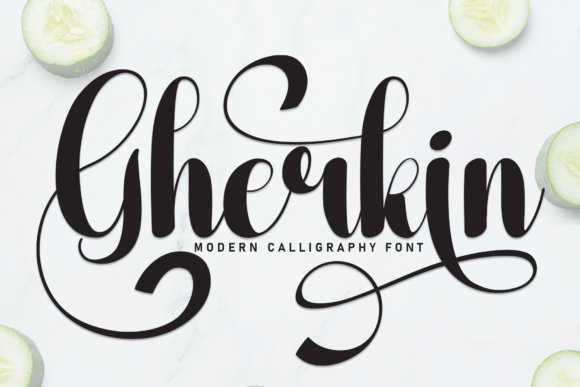
Feast your eyes on Gherkin Font, a whimsical and playful script font family that's the perfect choice for bringing a touch of lightheartedness to your designs. With its charming rounded curves and friendly letterforms, Gherkin radiates a sense of joy and cheerfulness that will add a special touch to any project.
Gherkin Font is a versatile font that's perfect for a variety of applications, including children's books, playful branding, creative projects, and more. Its energetic and delightful vibe will brighten up your designs and bring smiles to the faces of your readers or customers.
Let Gherkin Font be the star of your next children's book, adding a touch of magic and wonder to the pages. Its whimsical and playful nature will capture the imagination of young readers, making your story come alive in a whole new way.
Gherkin Font is also a great choice for playful branding and creative projects. Its unique and eye-catching design will help your brand stand out from the competition and leave a lasting impression on your customers. Whether you're designing a logo, creating marketing materials, or simply adding some flair to your website, Gherkin Font is sure to add a touch of fun and creativity.
With its versatility and charm, Gherkin Font is a font that every designer should have in their toolbox. Its friendly and approachable nature makes it a great choice for any project, from playful branding to creative designs. Download Gherkin Font today and let its whimsical and delightful vibe brighten up your designs and bring smiles to faces.